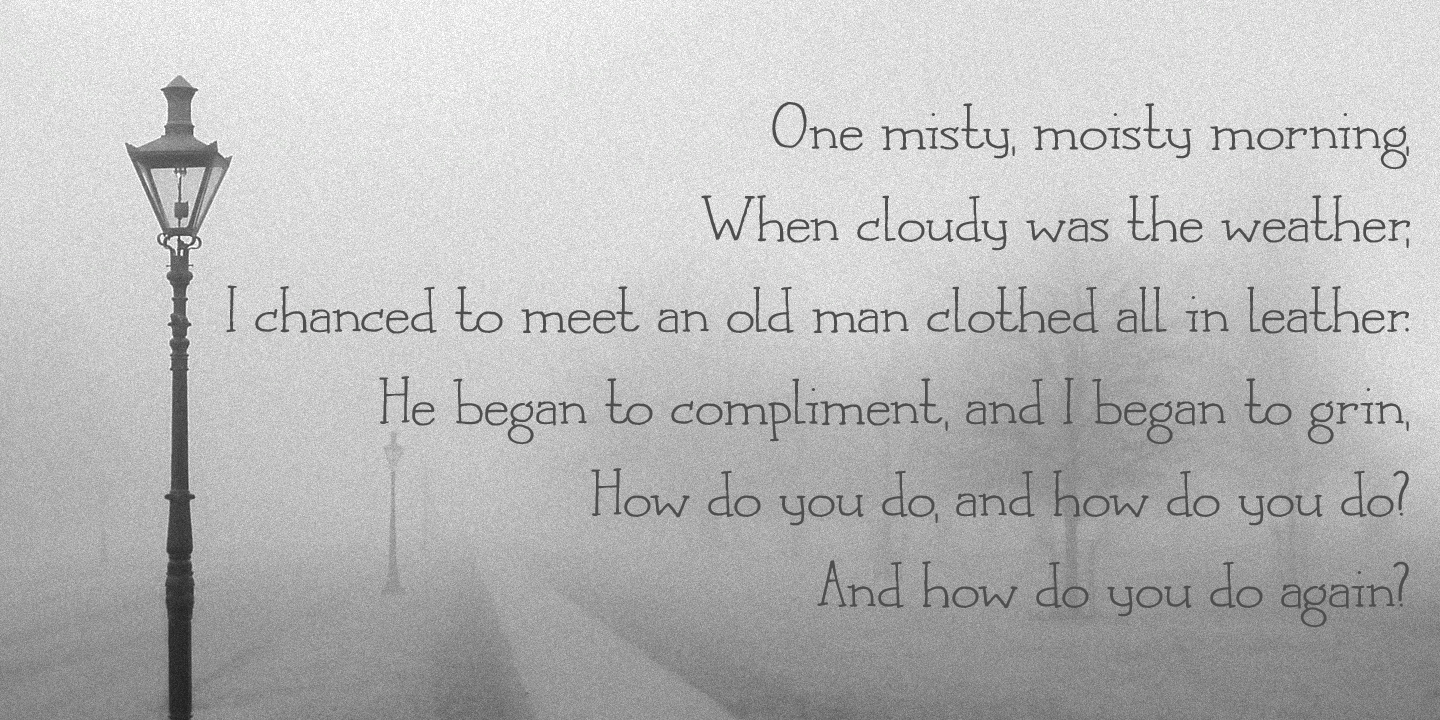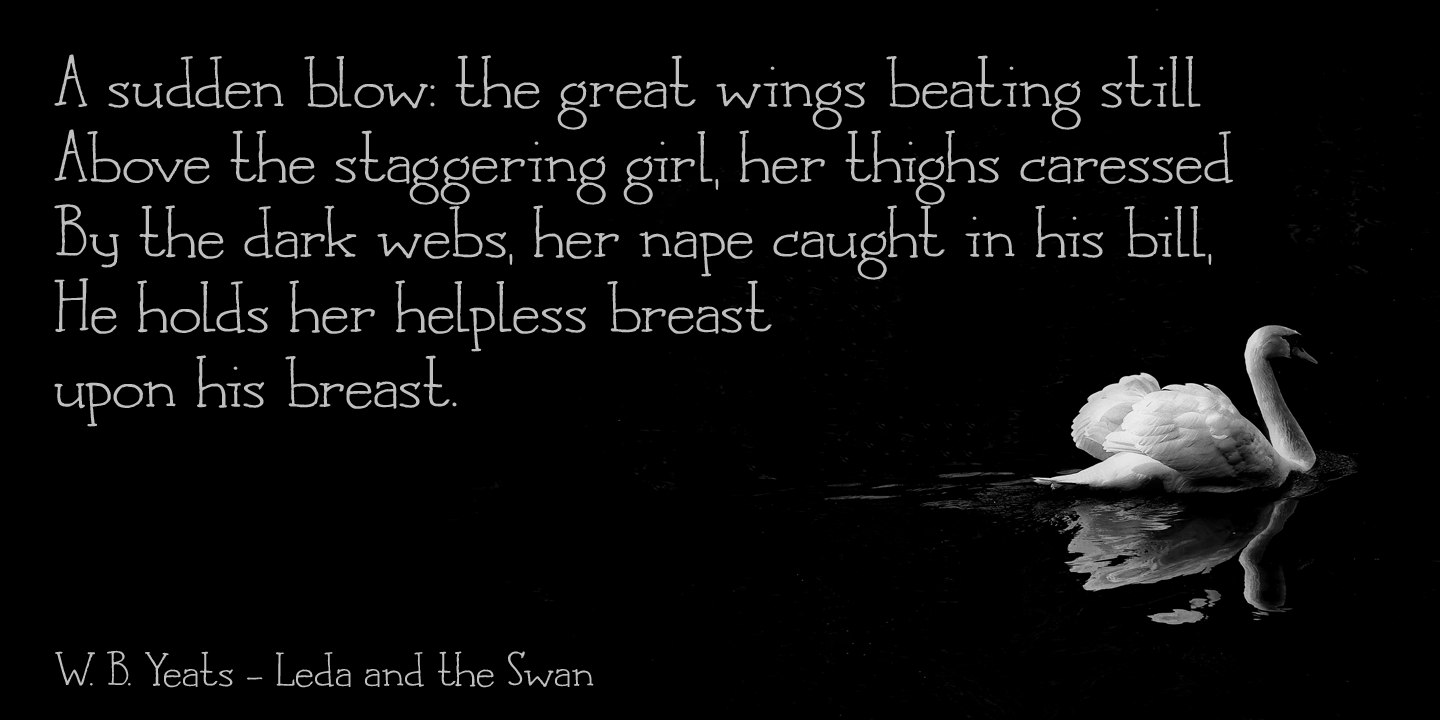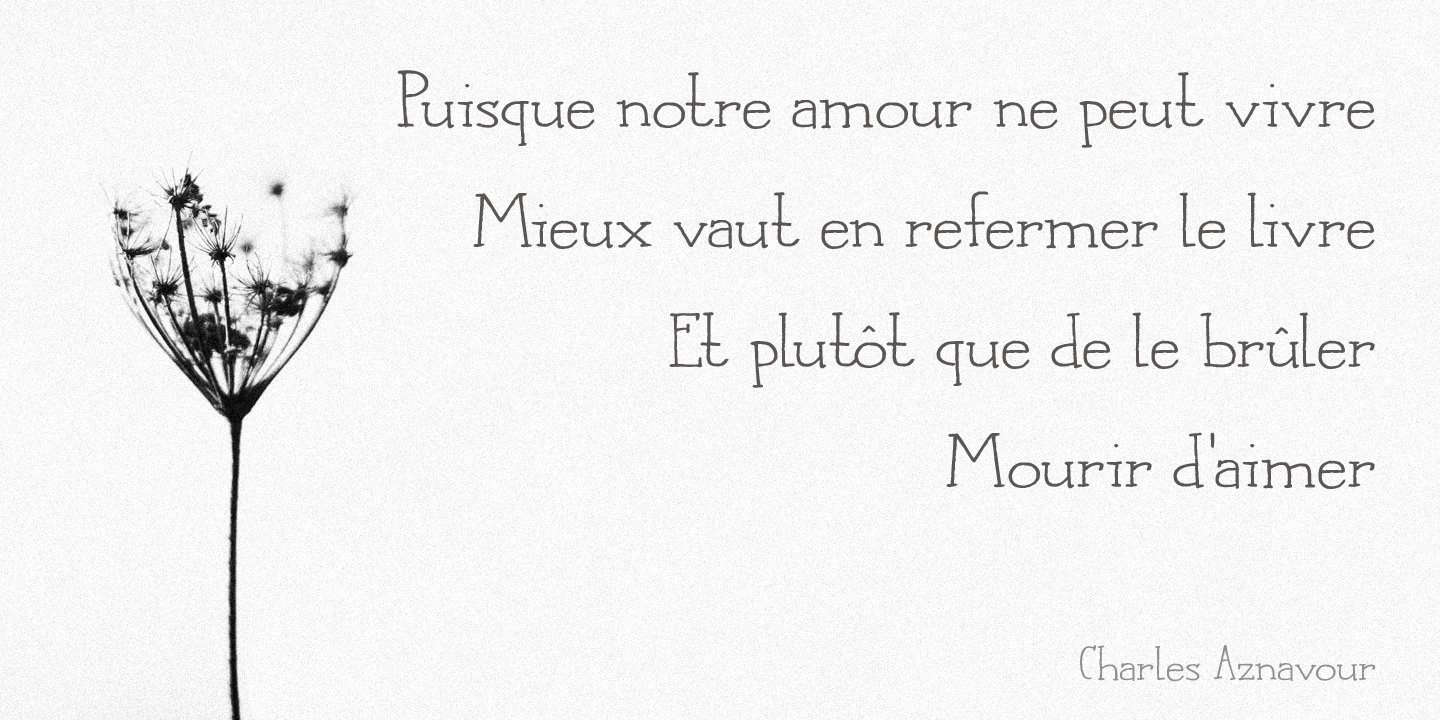
About Languedoc
Languedoc is a former province of France. Most of its territory lies in what is now the Occitanie region. My family and I love camping there and I figured I?d name a font after it! Languedoc is a beautiful and useful typeface: it is a handmade serif…